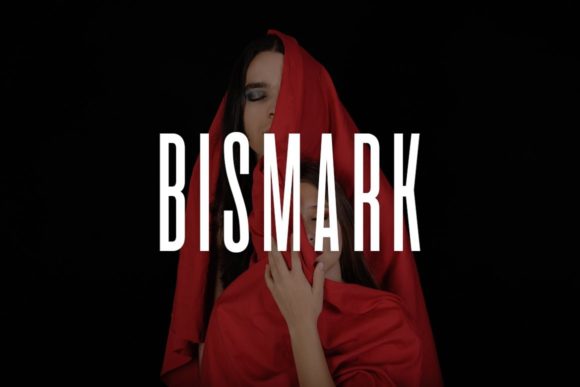
Bismark Font
Adorn your designs with the commanding presence of Bismark, a bold and striking sans serif font. With its clean, classic lines and unwavering strength, Bismark elevates the aura of any project it graces, from magazine titles to branding, and beyond. Crafted by Designova, this font exudes a timeless elegance that captivates and inspires.
With Bismark, your words leap off the page with newfound vigor. Its bold strokes and confident stance demand attention, ensuring your message shines brighter than ever before. Unleash your creativity and watch as Bismark transforms your T-shirt designs into captivating works of art. Every stroke, every curve, every letter speaks volumes, leaving an indelible mark on the hearts and minds of your audience.
Designova's Bismark font is more than just a collection of letters; it's a conduit for expression, a gateway to design excellence. Its versatility knows no bounds, effortlessly adapting to a myriad of design styles and concepts. Whether you seek a touch of sophistication for your branding or a dash of boldness for your magazine titles, Bismark delivers every time. Its timeless charm ensures that your designs remain relevant and captivating for years to come, standing the test of time with unwavering grace.
Bismark is not merely a font; it's an emblem of creativity, a symbol of your unwavering commitment to excellence in design. Embrace its power, unleash your imagination, and watch as your designs soar to new heights.